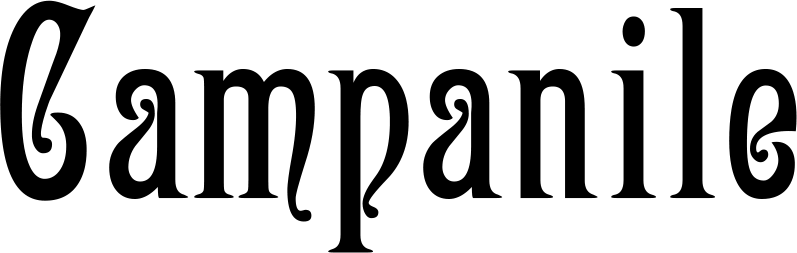
Campanile Font
Campanile is a font that allows you to create a typography that, has an ancient look and feel. It provides bold slim narrow characters that you can utilize for the typography you are designing. It’s not that easy to read…
Campanile is a font that allows you to create a typography that, has an ancient look and feel. It provides bold slim narrow characters that you can utilize for the typography you are designing. It’s not that easy to read at first, but it’s gorgeous.
This retro font has a medieval style to its design, which also contains a full set of letterforms that are mixed-case alphabets, numbers, and punctuation. It’s best for movies, books, games, shop banners, and packaging.